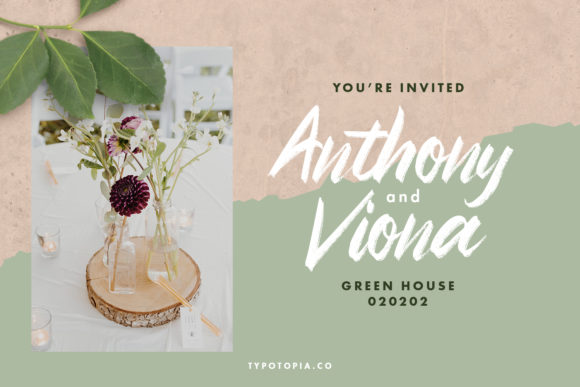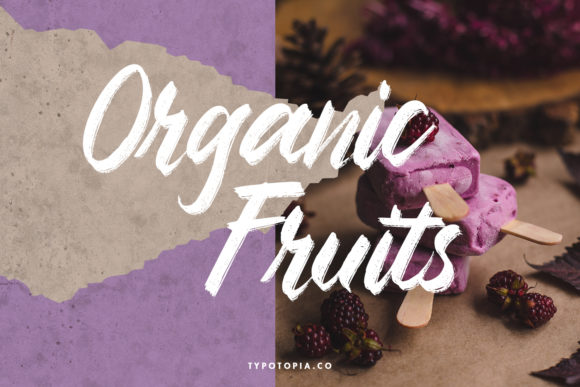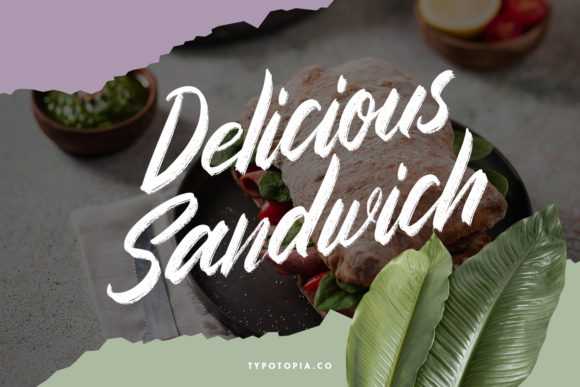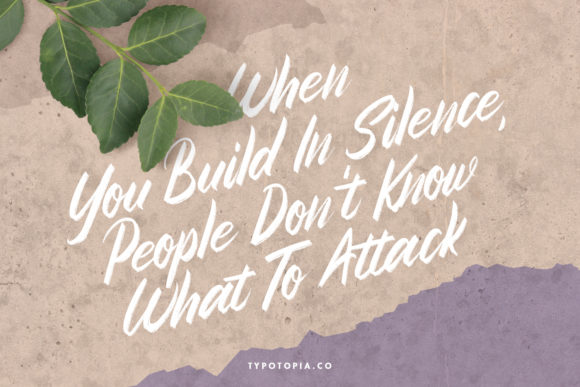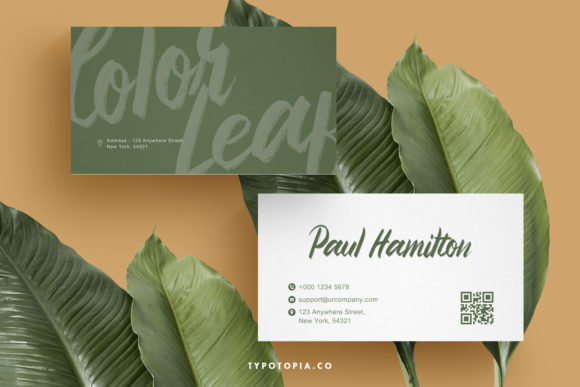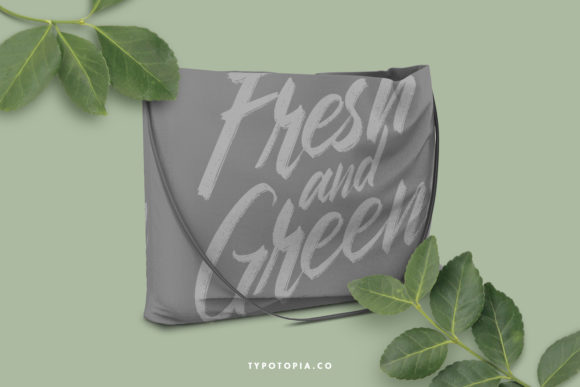
Introduction to Sembilu Font
As a designer, have you ever found yourself pouring over font options for the perfect fit for a creative project, only to be left feeling uninspired by the usual suspects? It’s a familiar struggle, but one that can be solved with the right discovery. For me, that moment came when I stumbled upon the breathtaking Sembilu Font.
With its beautifully flowing, handwritten style, the Sembilu Font has captured the hearts of designers and artists everywhere. Its versatility makes it an ideal choice for a wide range of applications, from elegant wedding invitations to eye-catching social media posts. Whether you’re looking to add a touch of sophistication to your design or simply want to spice up your next creative project, the Sembilu Font is an invaluable resource.
Key Features of Sembilu Font
- Designed with a unique aesthetic, perfect for adding a touch of elegance to any creative project
Honest Review: Sembilu Font
As a designer, I’m always on the lookout for high-quality design resources that can elevate my creative projects. The Sembilu Font is one such resource that I’ve had the pleasure of working with.
Here are some things that work well with the Sembilu Font:
- ✨ High-quality design: The font is meticulously crafted, with attention to detail and a clear focus on aesthetic appeal.
- ✨ Versatility: The font is suitable for a wide range of design projects, from digital displays to print materials.
However, I did encounter some limitations with the Sembilu Font:
- ⚠️ Limited character set: The font only includes a limited set of characters, which may not be sufficient for all design projects.
Overall, I’m impressed with the Sembilu Font and would recommend it to designers looking for a high-quality, free design resource. While it has some limitations, the font’s versatility and ease of use make it a valuable addition to any design toolkit.
Common Use Cases for Sembilu Font
The Sembilu Font is ideal for creating logos, graphics, and other design elements for any creative project. Its versatility and high quality make it a popular choice among designers.